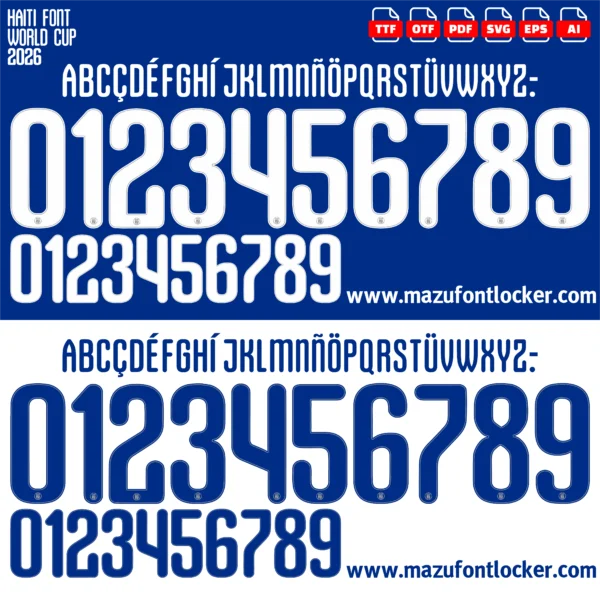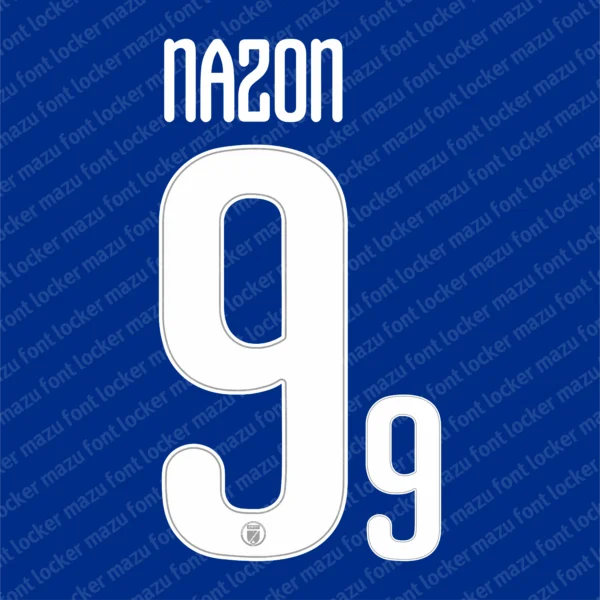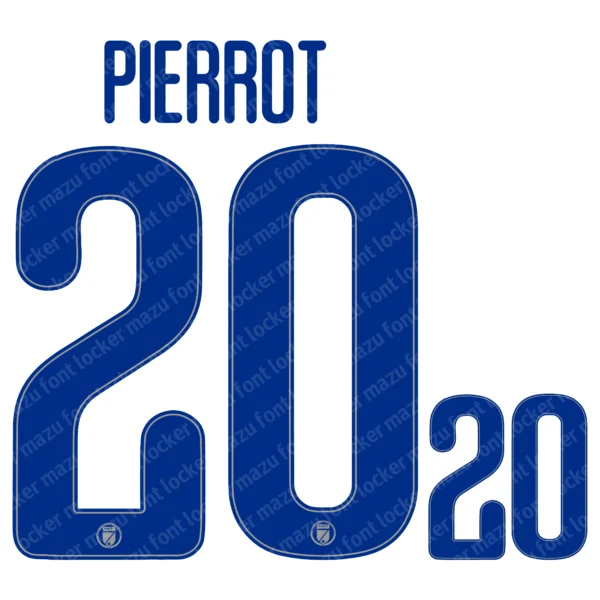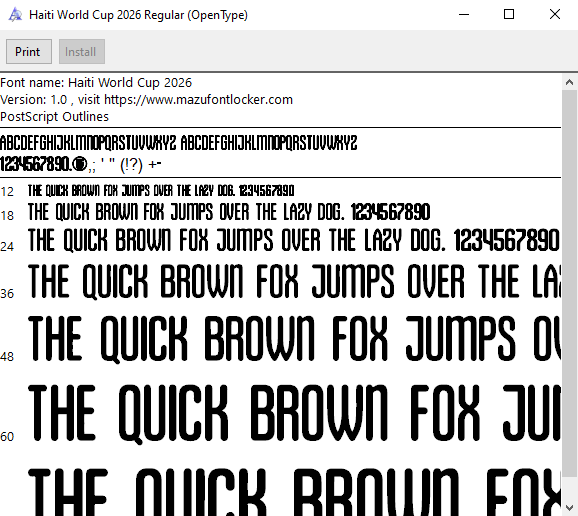
Haiti World Cup 2026 Font Vector – Epic Vibrant Caribbean Masterpiece
This premium font captures the commanding, iconic, majestic, and battle-ready lettering that embodies the unstoppable Haitian spirit — delivering raw Caribbean fire, explosive winning energy, relentless never-say-die mentality, tactical supremacy, and legendary revolutionary phoenix grit.
Haiti World Cup 2026 Font Vector – Authentic Grenadiers Typeface
The Haiti World Cup 2026 Font Vector is a premium typeface that accurately recreates the official match lettering worn by the Haiti national team during the 2026 FIFA World Cup campaign. This high-quality vector font kit captures the bold, vibrant, and resilient typography that represents the pride, passion, and rich football heritage of Les Grenadiers.
This font stands out because of its sharp vector precision and strong national identity. Every letter and number is crafted to match the exact style used on the players’ shirts during the 2026 World Cup campaign. Whether you are making realistic kit templates or exciting Grenadiers content, the Haiti World Cup 2026 Font Vector gives your designs that authentic Haiti look.
The letterforms in the Haiti World Cup 2026 Font Vector are tall, bold, and highly readable. The strokes have a strong, clean weight with excellent edge definition that looks powerful on the back of jerseys while maintaining classic Caribbean spirit and modern strength.
- Full uppercase A–Z and numbers 0–9 in authentic Haiti World Cup 2026 style
- Special Haiti crest glyph – Press the “:” (colon) symbol to insert the Haiti crest
- Multilingual Latin character support including diacritics
- Includes the exact crest glyph placement used under player numbers